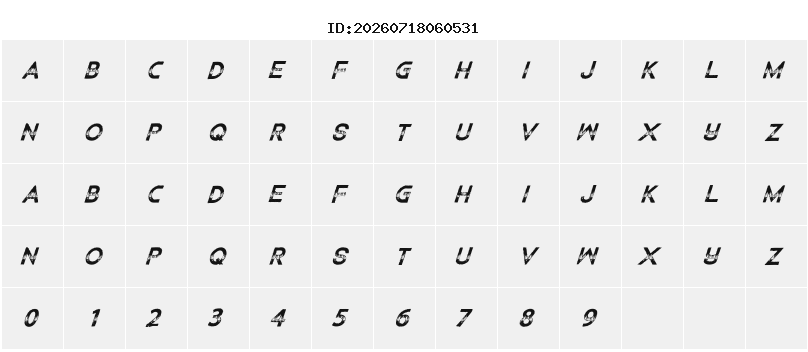
• Font Name: Children Among Lions
• Designer: Chris Vile
• Manufacturer: Font Monger
• Description: Children Among Lions Italic is a font by Font Monger, designed by Chris Vile in 2015.
About Children Among Lions.ttf
Children Among Lions.ttf is a modern, elegant sans-serif font designed for ultimate readability and visual harmony. Perfect for branding, headlines, web design, and print materials.